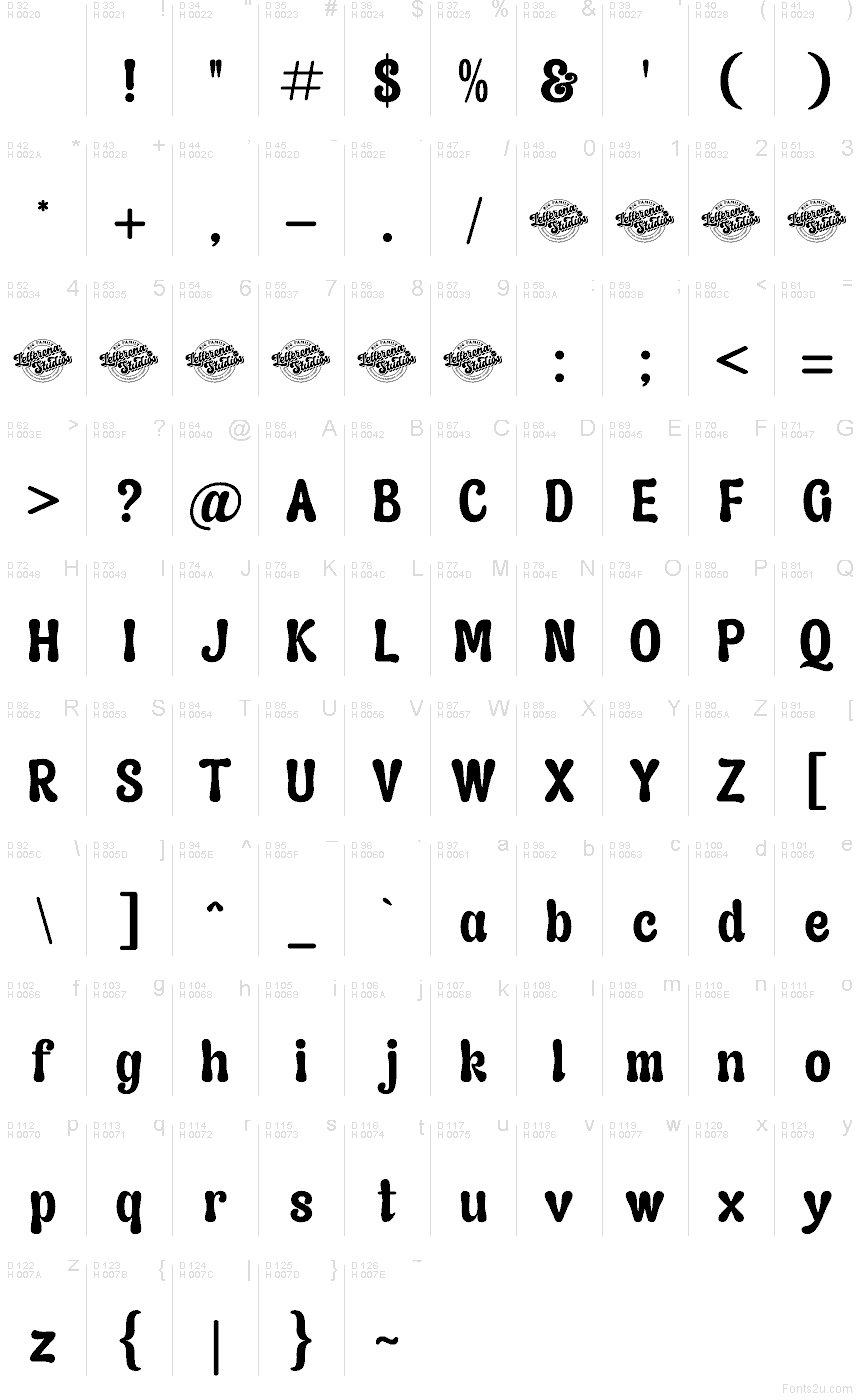
Asterah Quirkyn DEMO VERSION
Asterah Quirkyn font by Letterena Studios is a free retro display typeface with a delightfully bouncy, blobby rhythm. Its rounded, inky curves and chubby strokes feel like 70s bubble lettering refined for modern layouts, giving every word a warm, handmade energy. The letters snuggle close without feeling cramped, so your headlines look bold and friendly instead of loud and shouty.
Using Asterah Quirkyn, this free font shines on branding for cafes and bakeries, playful packaging, vintage-inspired posters, event flyers, social media graphics, and bold merch. The quirky silhouettes add just enough drama to stand out in a feed while staying legible at medium sizes. For a simple pairing tip, match Asterah Quirkyn with a clean geometric sans in small text to let its chunky character take center stage in titles and logos.